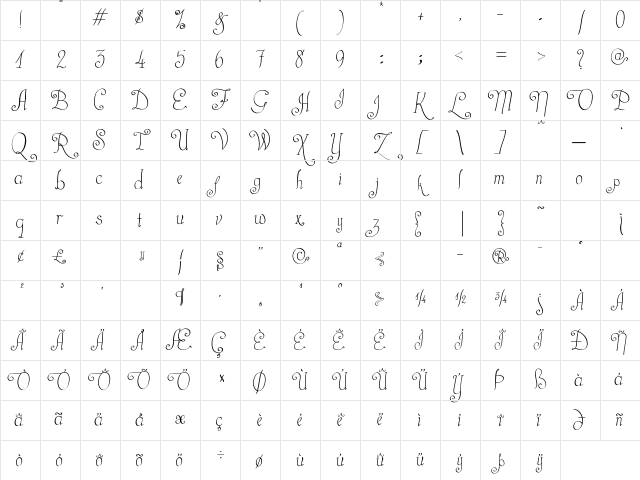
Castal Street Regular
Designer: (c) Heather Taylor
Design Context for Castal Street
Castal Street is a composed and adaptable typeface that performs quietly and consistently across a wide range of design contexts.
Pro Tip: Use Castal Street in both headline and body roles to test its range before committing to a single application.